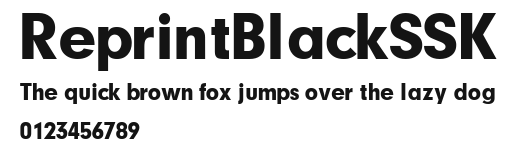
ReprintBlackSSK.ttf is a modern, elegant sans-serif font designed for ultimate readability and visual harmony. Perfect for branding, headlines, web design, and print materials.